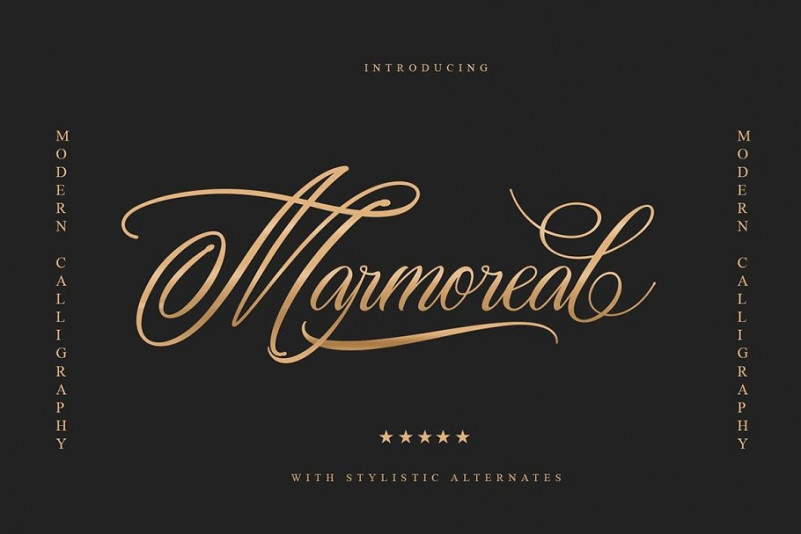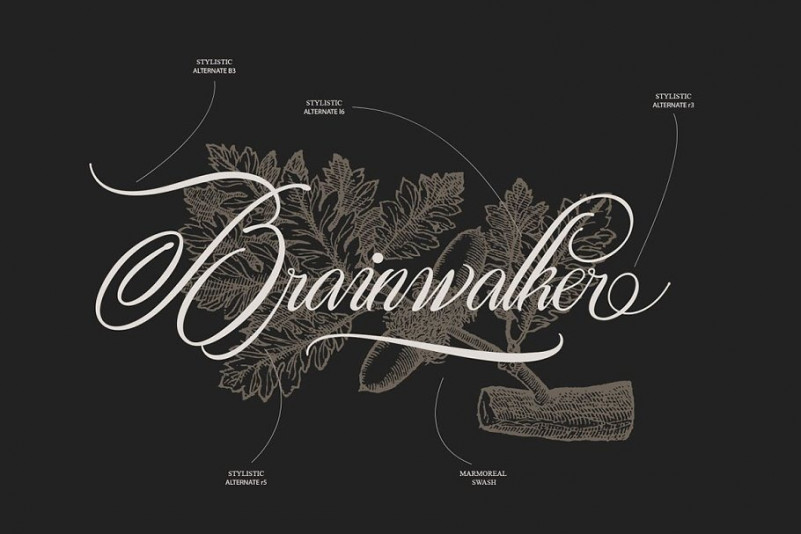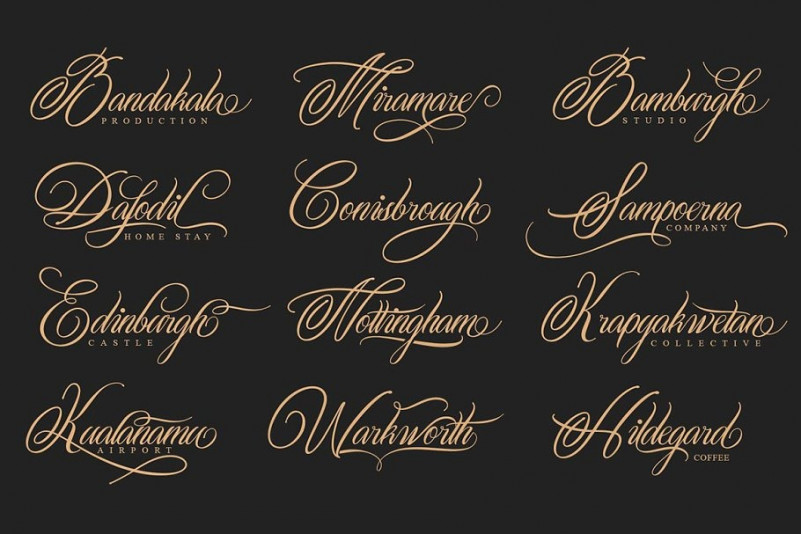
Marmoreal Font
Decorative script font that is inspired by vintage letters or cards. With ornamental vintage style and lot of swashes you can create realistic headers or branding designs. It works beautifully for any branding and advertising. You’ll find a lot of alternate characters, ligatures and multilanguage characters in this elegant & decorative script font. Great for your new elegant style logos or headers. Comes also with swash font.